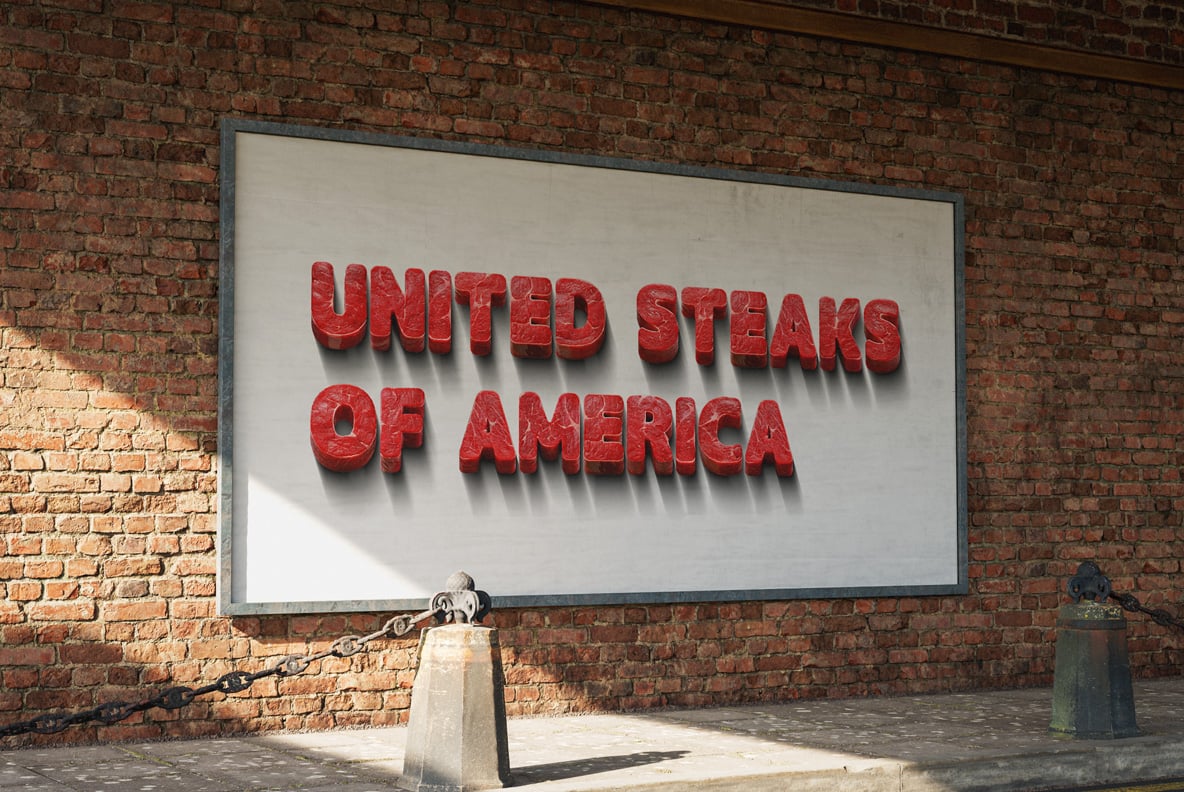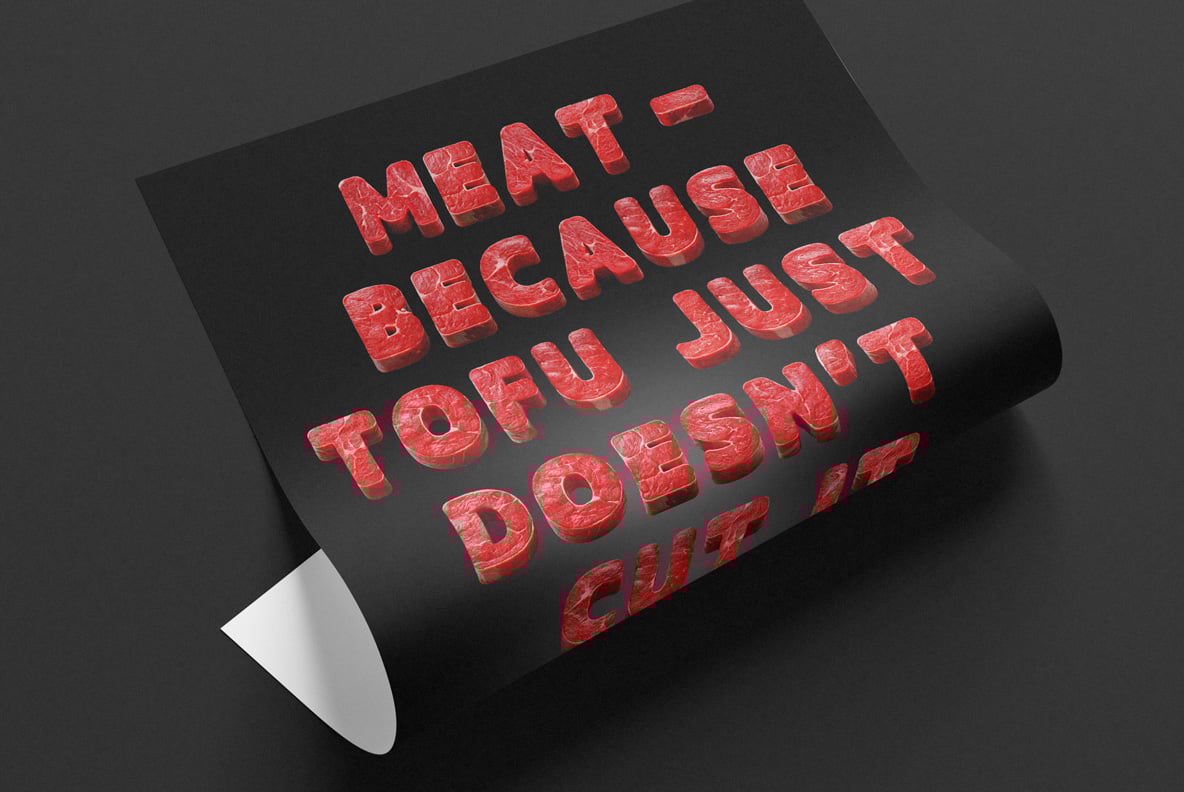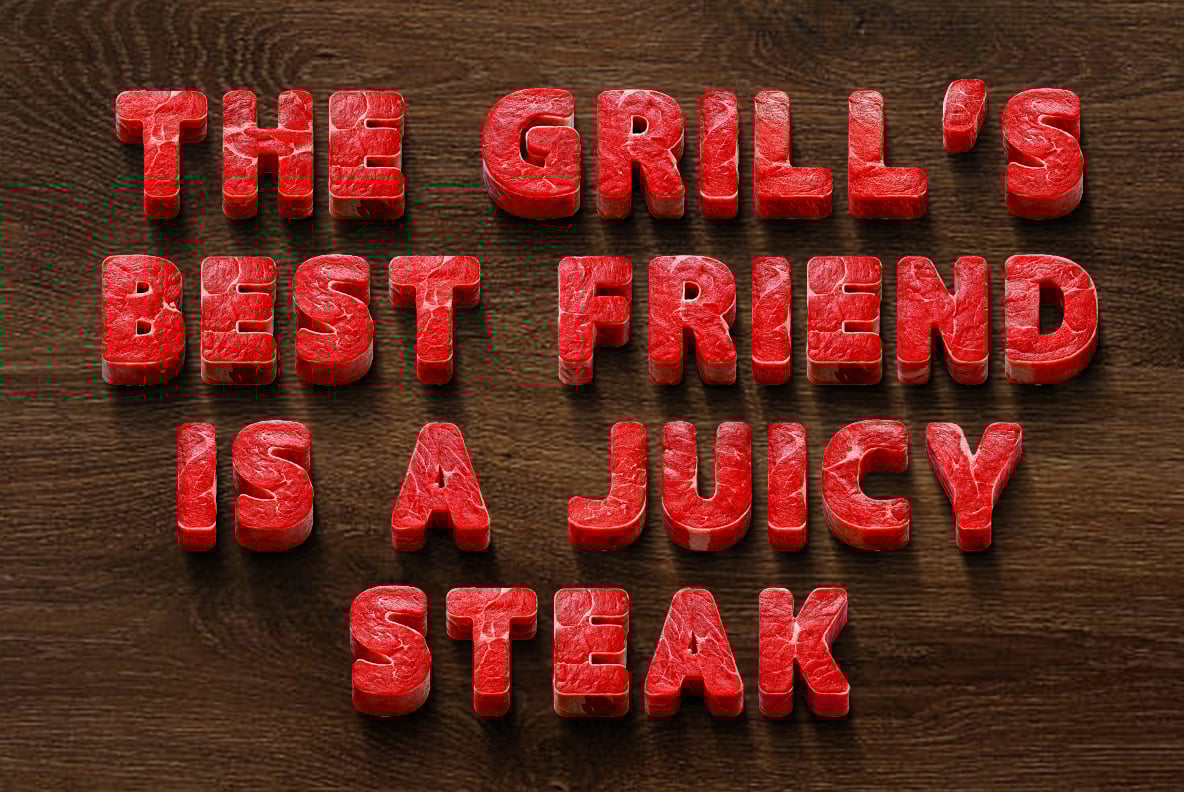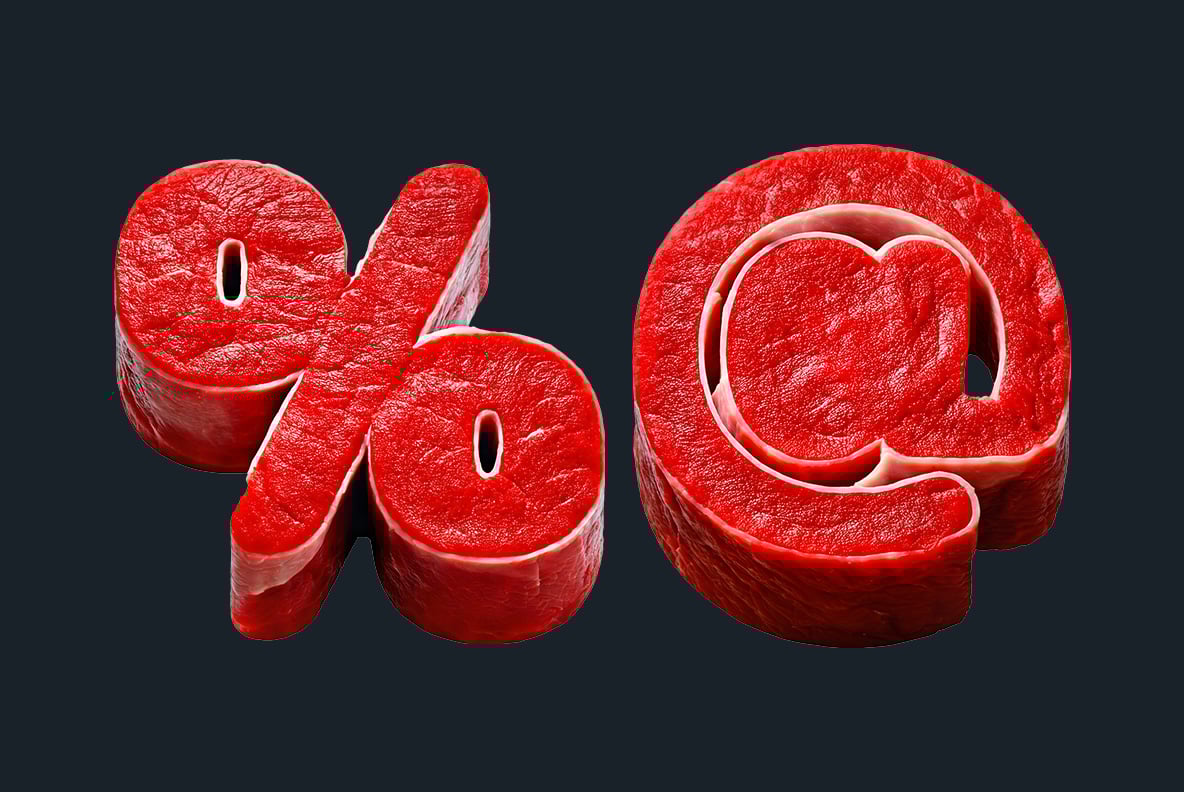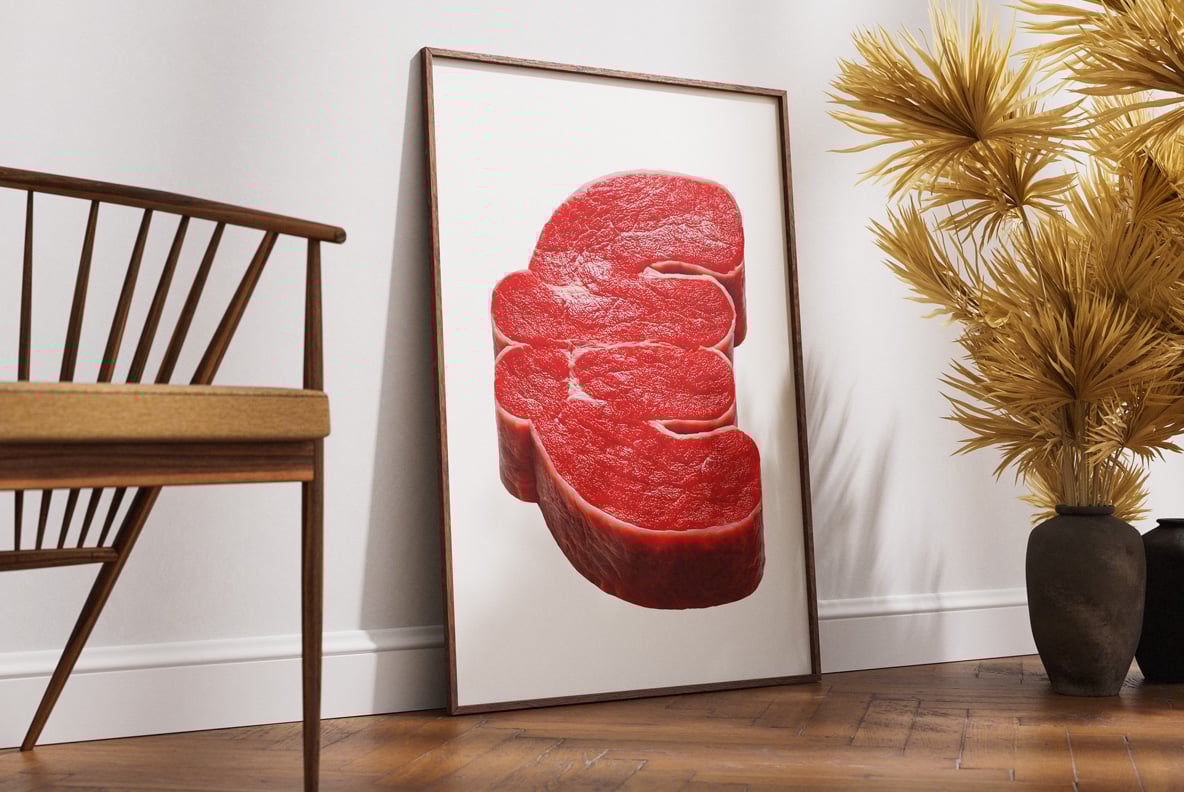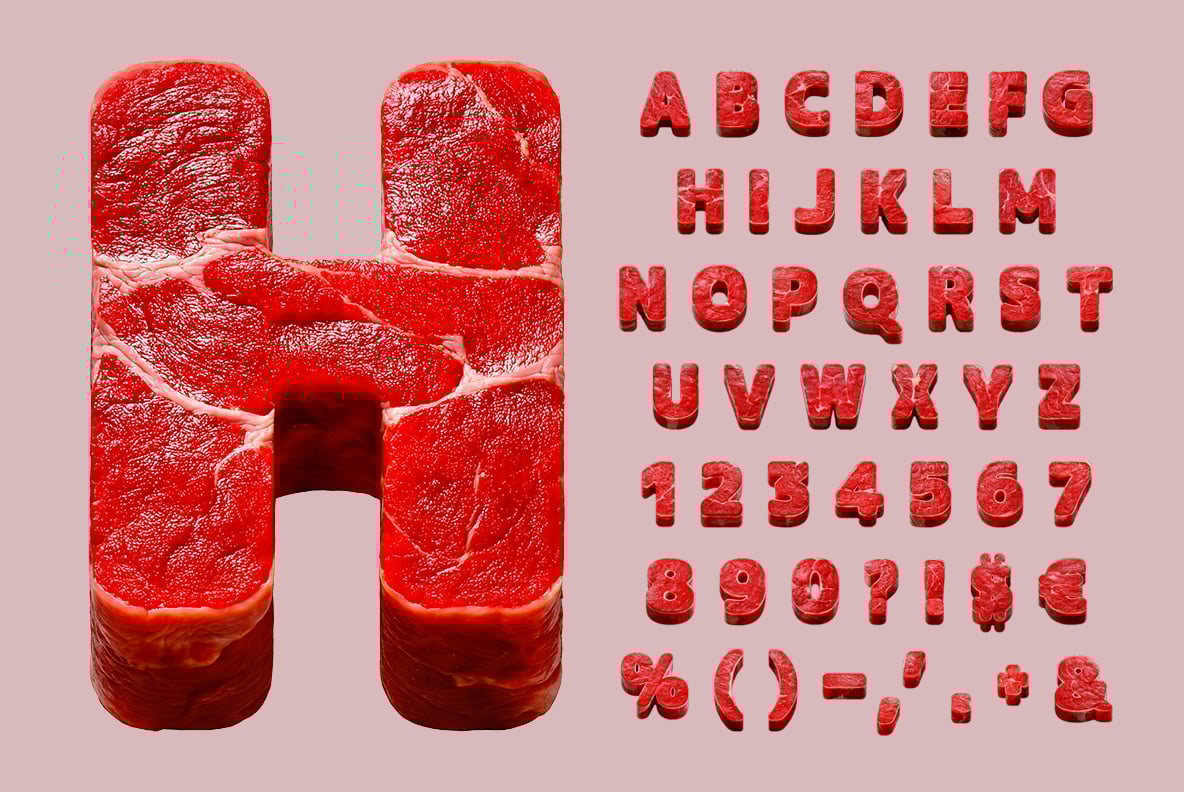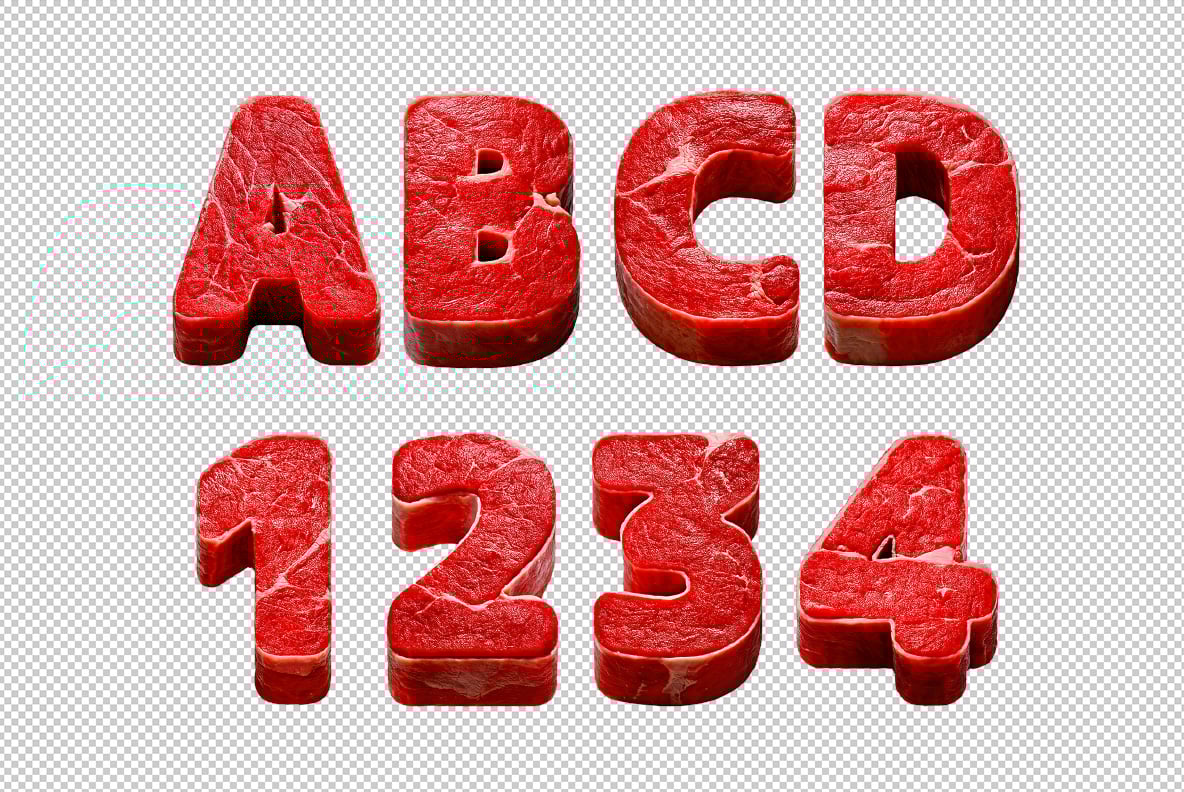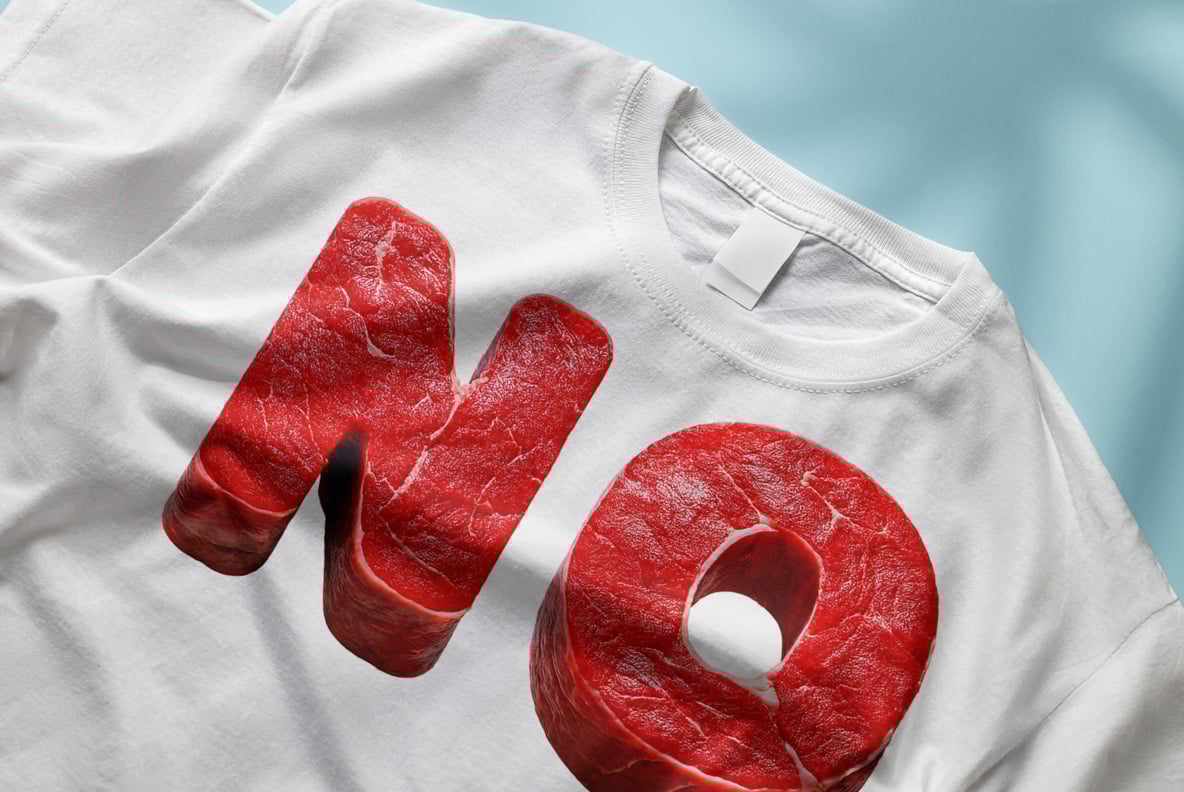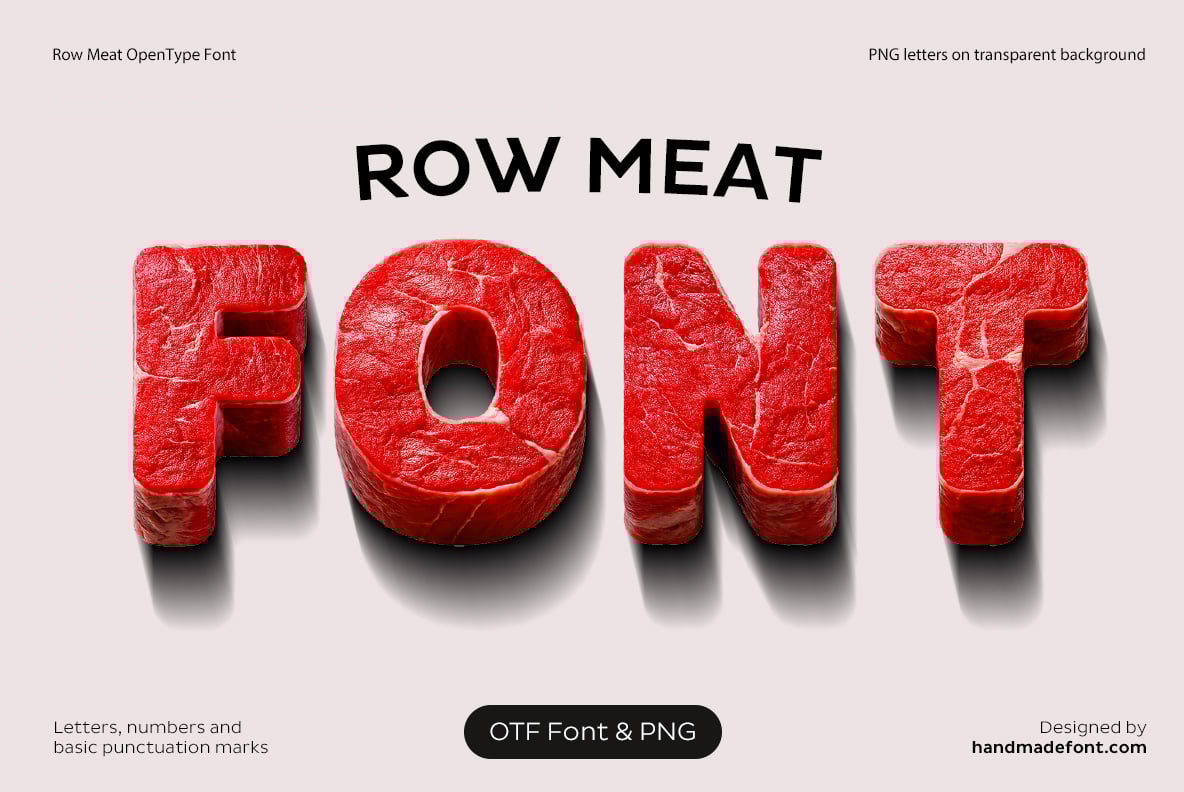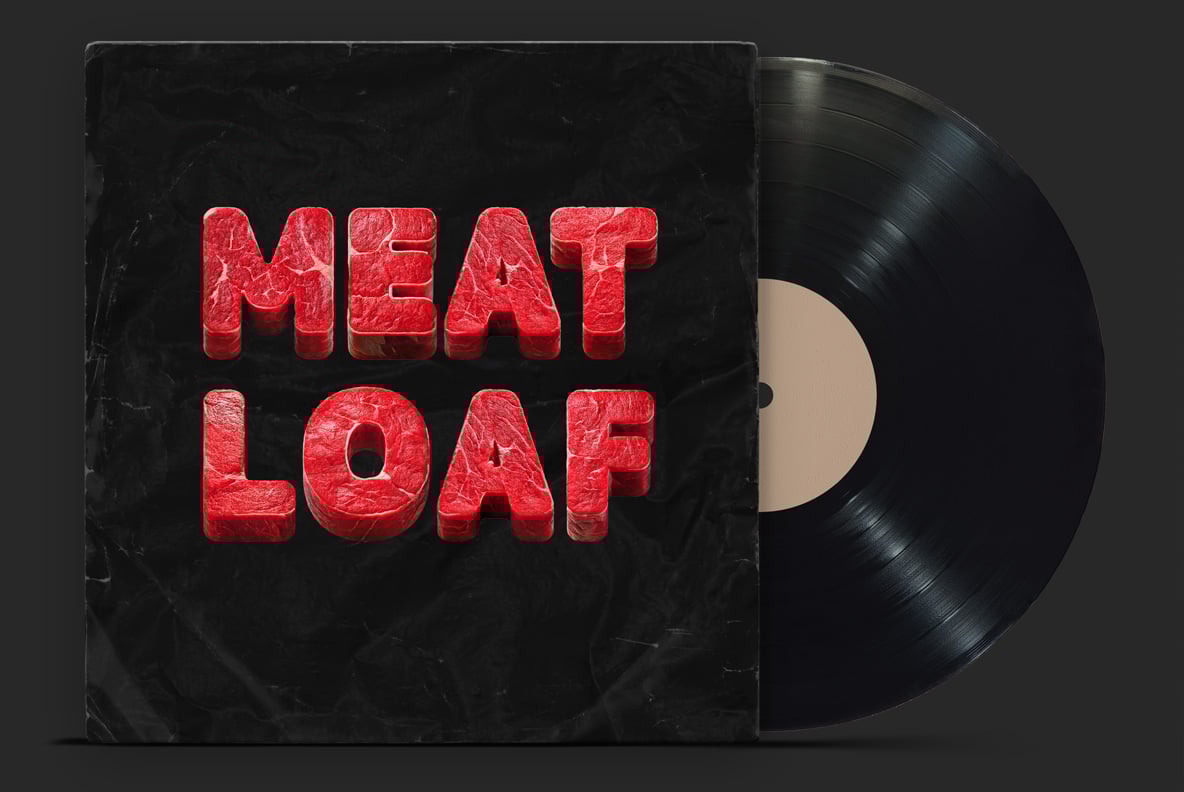
Row Meat Font
Food is art, and the "Row Meat Font" takes it to a bold new level! Each letter is meticulously crafted to resemble raw meat steaks, creating a striking, juicy alphabet. Perfect for food-themed designs, butcher shop branding, or edgy culinary content, this font brings a mouthwatering, textural flair. From steak-inspired typography to carnivorous creativity, it’s ideal for adding a savory, bold statement to your projects. Get ready to spell it out with style—raw, rare, and unforgettable!